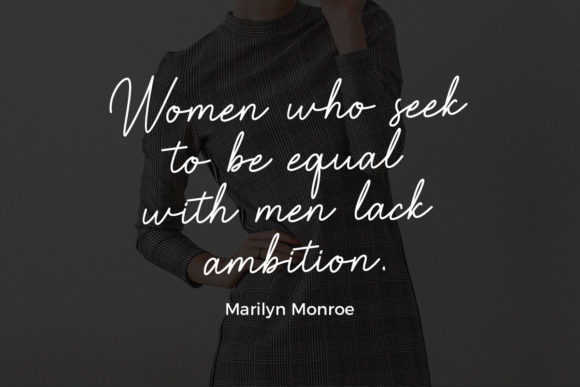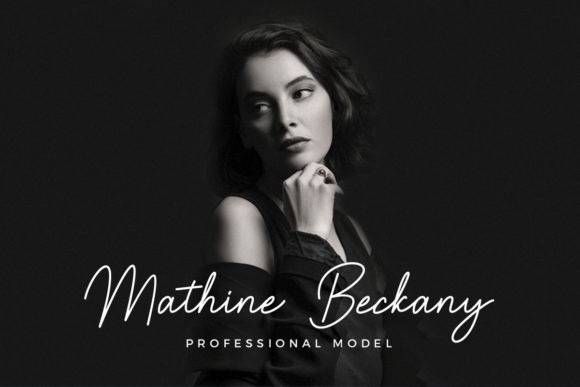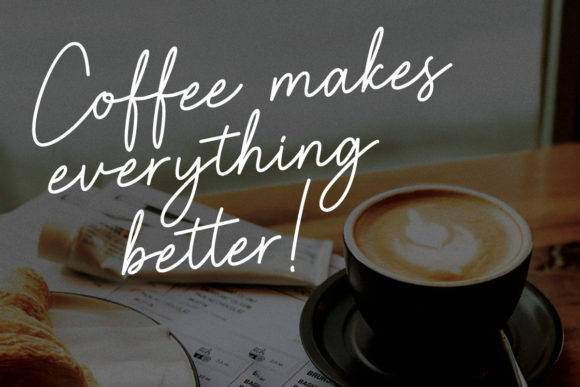
Introduction to Mashiny Font
Have you ever stared at a blank design canvas, eager to bring your creative vision to life, only to be stuck on the perfect font to match your concept? That’s where Mashiny Font comes in – a stylish and delicate script font that’s about to become your new design BFF. With its clean, thin, and smooth vibe, this font is a game-changer for any creative project that requires a touch of elegance and sophistication.
Whether you’re working on a branding project, a social media campaign, or even a personal blog, Mashiny Font is the perfect design resource to elevate your visual identity. Its versatility and high-quality design make it an ideal choice for designers who crave a unique and refined look.
Mashiny Font
- High-quality font design with a unique, futuristic style, ideal for creative projects and modern designs.
- Features a large character set, including uppercase and lowercase letters, numbers, and punctuation marks.
- Designed to be highly legible, making it perfect for use in titles, headings, and body text in various creative projects.
Honest Review: Mashiny Font
As a designer, I’m always on the lookout for high-quality design resources to enhance my creative projects. Recently, I had the chance to work with Mashiny Font, and I must say, it’s been a game-changer. ✨
Mashiny Font is a beautiful, modern font that’s perfect for any design project. One of the things I love about it is the transparent background, which makes it super easy to customize and blend with any design element. Plus, it’s completely free to download, which is always a bonus!
Here are some of the features that I think work well with Mashiny Font:
- Perfect for digital and print designs
One of the limitations I’ve noticed is that the font is not suitable for complex typography, as it can get a bit blurry at larger sizes. ⚠️ However, this is a minor issue that can be easily worked around.
Overall, I’m thoroughly impressed with Mashiny Font. It’s a fantastic design resource that’s perfect for any creative project. If you’re looking for a high-quality font that’s easy to use, I highly recommend giving it a try.
Mashiny Font
Mashiny Font is a versatile and high-quality design resource perfect for creative projects. With its transparent background and unique style, it’s ideal for adding a touch of sophistication to your designs.
Tips for Getting the Most Out of Mashiny Font
To get the most out of Mashiny Font, use it in combination with other design elements, such as images and graphics, to create visually appealing designs. You can also experiment with different font sizes, colors, and styles to add depth and interest to your projects.
Mashiny Font is perfect for a variety of creative projects, including:
- Branding and logo design
- Invitations and event design
- Presentations and documents
What makes Mashiny Font a high-quality design resource?
Mashiny Font is a high-quality design resource due to its clear and legible characters, precise typography, and optimized vector graphics. The font is carefully crafted to provide a seamless user experience and is suitable for a wide range of design applications, from branding and marketing materials to digital products and creative projects.